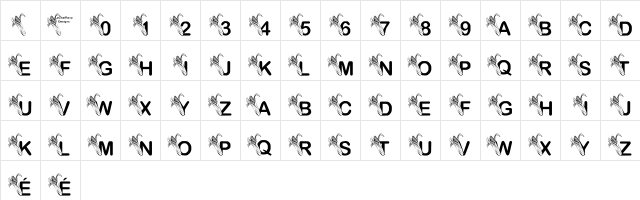
LCR Autumn Harvest Regular
Design Context for LCR Autumn Harvest Typeface
LCR Autumn Harvest offers clean, dependable letterforms without strong stylistic allegiance, making it a practical choice for designers who need flexibility.